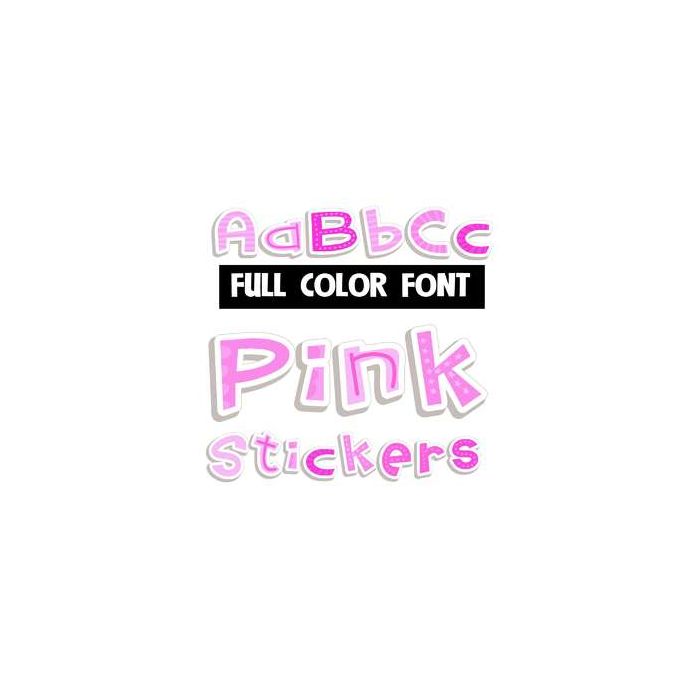
This full color font is a pink-patterned font that looks like stickers. This font works best for titles, displays, posters and more. Please note color fonts will show as black in non compatible programs. This font type is compatible with Silhouette Studio.